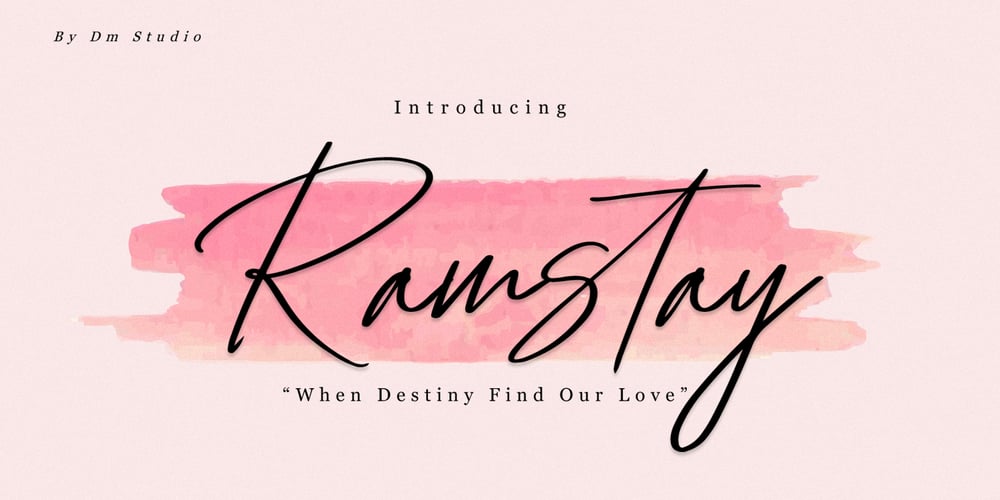
Ramstay
Ramstay font
Ramstay Font Family was designed by Dimas Prasetyo and published by DM Studio. Ramstay contains 1 styles and family package options. Ramstay Beautiful Signature Font is an elegant and sophisticated typeface designed to bring a touch of class and refinement to your projects. With its stylish and flowing letterforms, this font is perfect for signatures, logos, branding, wedding invitations, and other high-end designs. Elevate your work with the timeless beauty and graceful charm of the Ramstay Beautiful Signature Font.Features: Elegant and Sophisticated Design: The Ramstay Beautiful Signature Font features elegant and flowing letterforms that convey a sense of class and refinement. Versatile Application: Ideal for signatures, logos, branding, wedding invitations, and other high-end design projects that require a touch of sophistication. Uppercase and Lowercase Letters: Both uppercase and lowercase letters are included, offering flexibility in creative expression. Ligatures and Special Characters: The font includes ligatures and special characters to enhance the visual interest and uniqueness of your typography. Punctuation and Symbols: A comprehensive set of punctuation marks, numerals, and common symbols is included, ensuring consistency and ease of use in your design projects. Easy Installation and Use: The Ramstay Beautiful Signature Font is easy to install on both Windows and Mac operating systems and integrates seamlessly into popular design software such as Adobe Photoshop, Illustrator, and InDesign, ensuring a smooth and efficient design workflow.